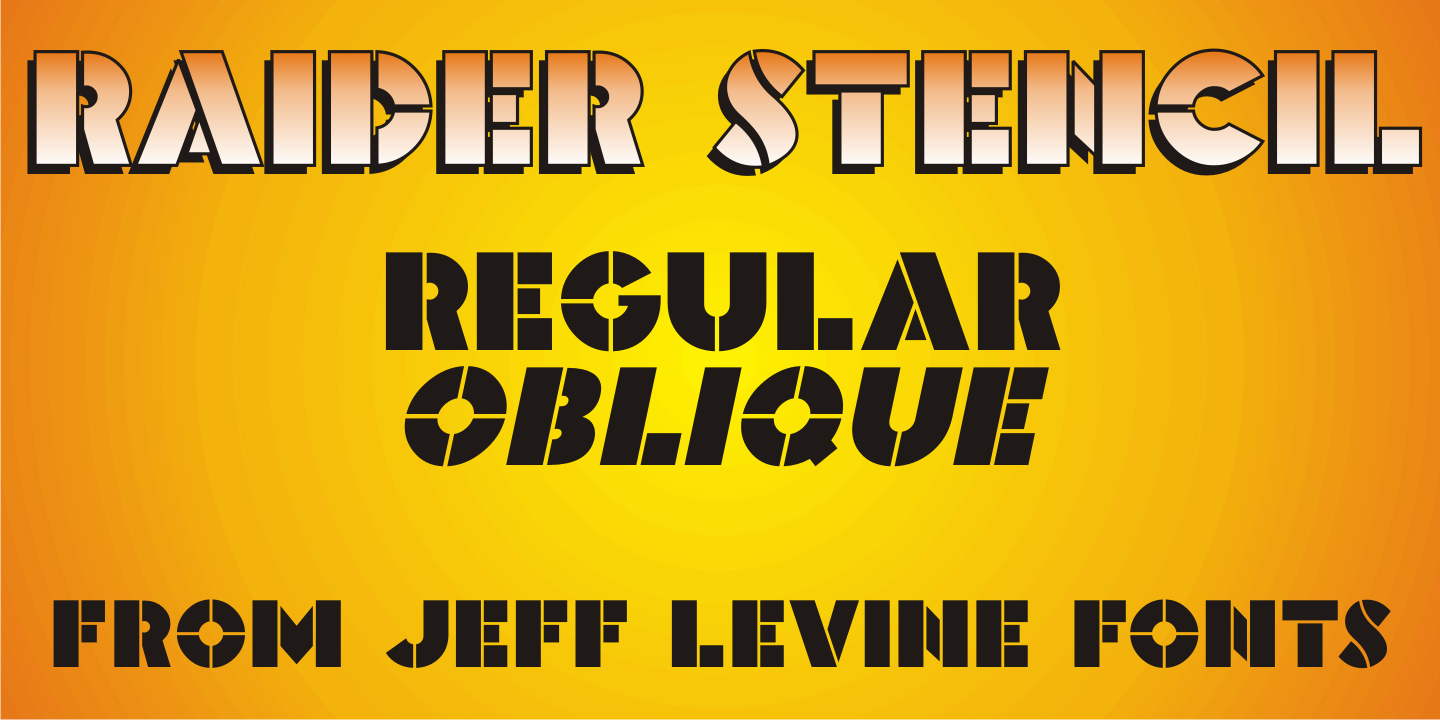
Raider Stencil JNL Font Free Download is a bold, military-inspired stencil typeface that adds strength and rugged character to your design projects. Perfect for posters, tactical gear branding, packaging, signage, event promotions, and themed graphics, this font brings an industrial, authoritative aesthetic that commands attention. Raider Stencil JNL Font captures the essence of utilitarian design while remaining versatile and impactful.
With Raider Stencil JNL Font Free Download, you’ll receive a complete set of uppercase letters, numbers, and essential punctuation, providing flexibility across a variety of creative applications. Whether you’re creating bold headlines, merchandise, product labels, or promotional materials, this font ensures strong readability and a striking visual presence.
Add power and precision to your designs with Raider Stencil JNL Font Free Download. Its bold stencil style makes it a standout choice for projects that demand toughness, clarity, and boldness.